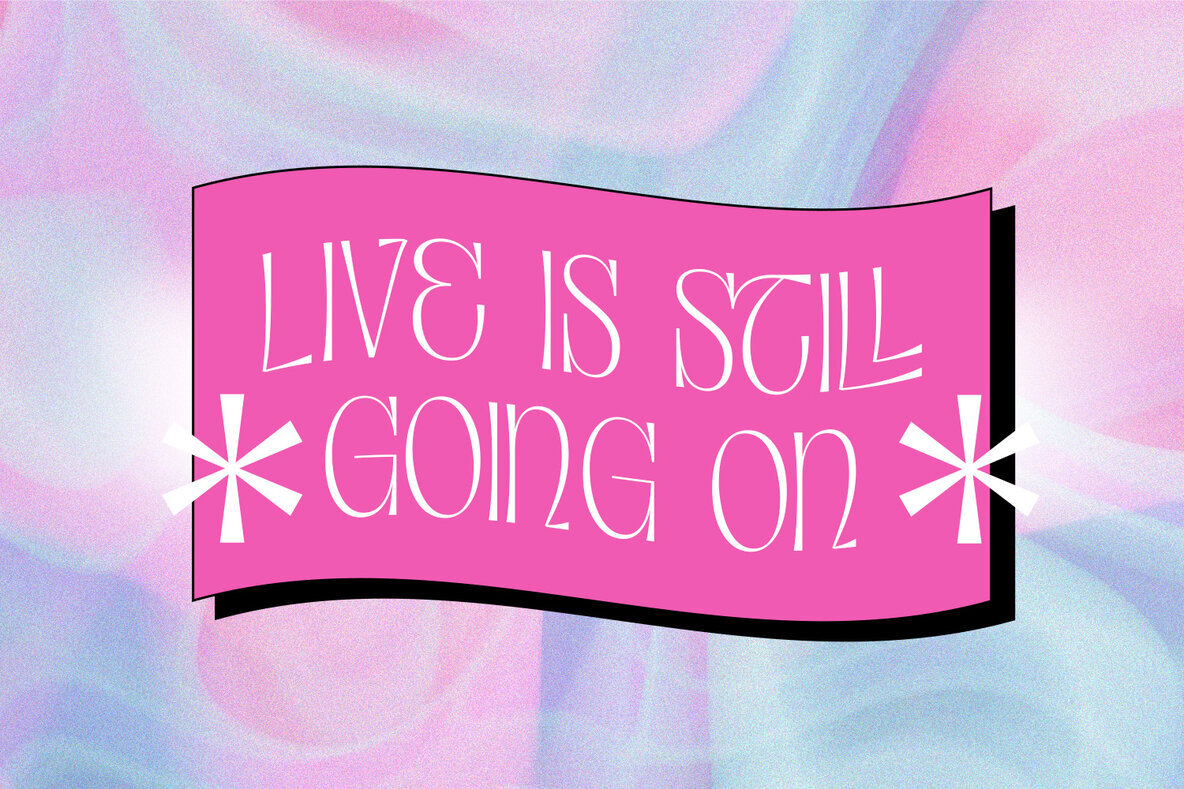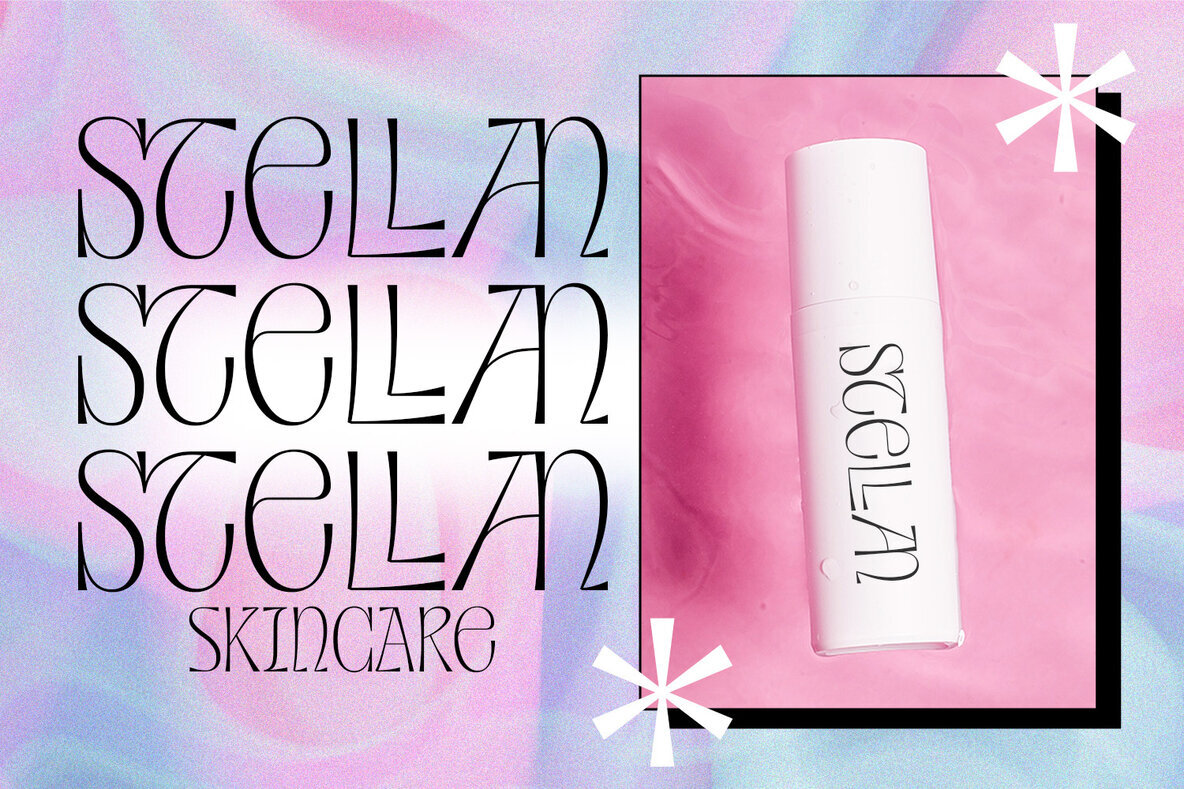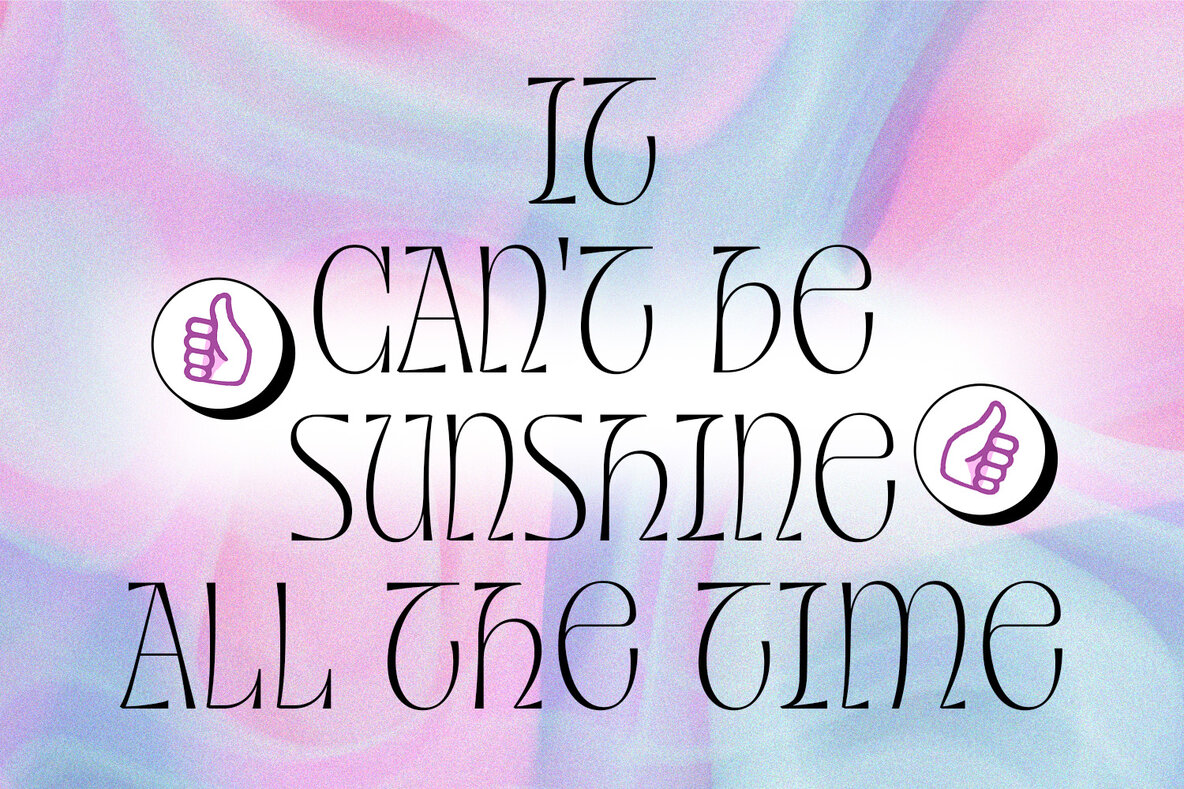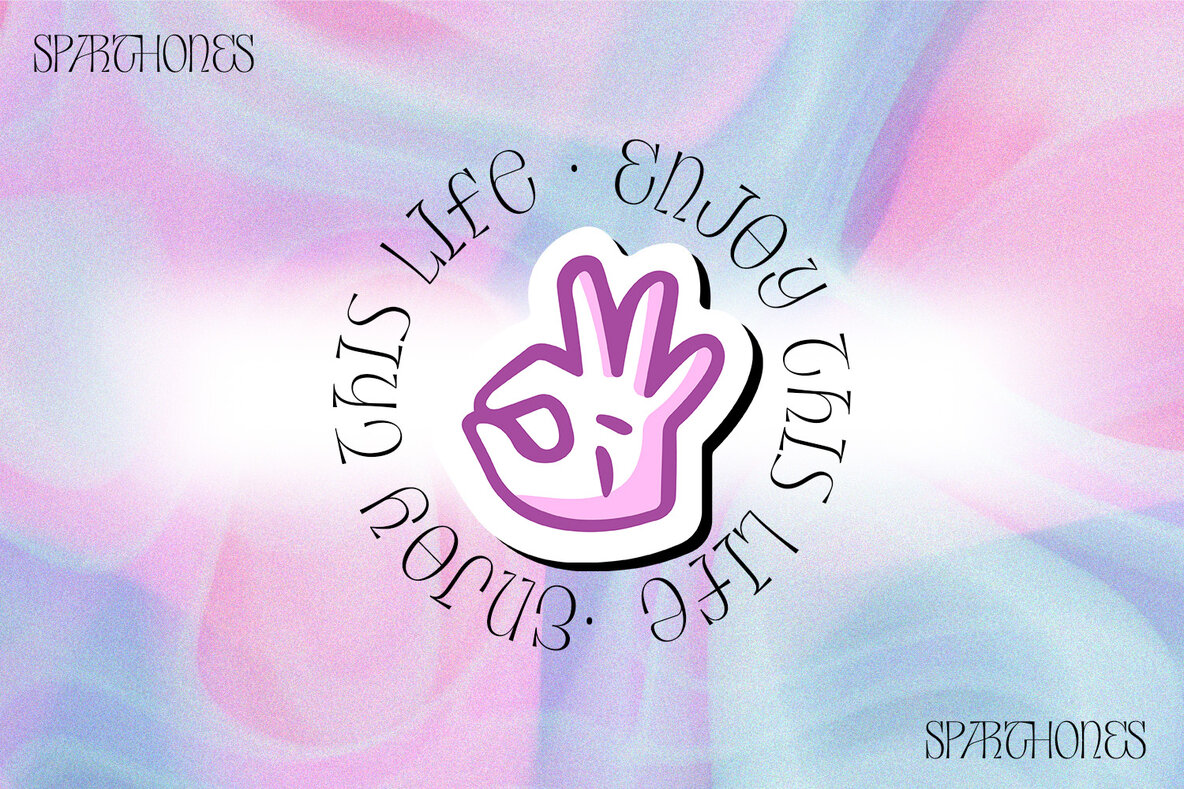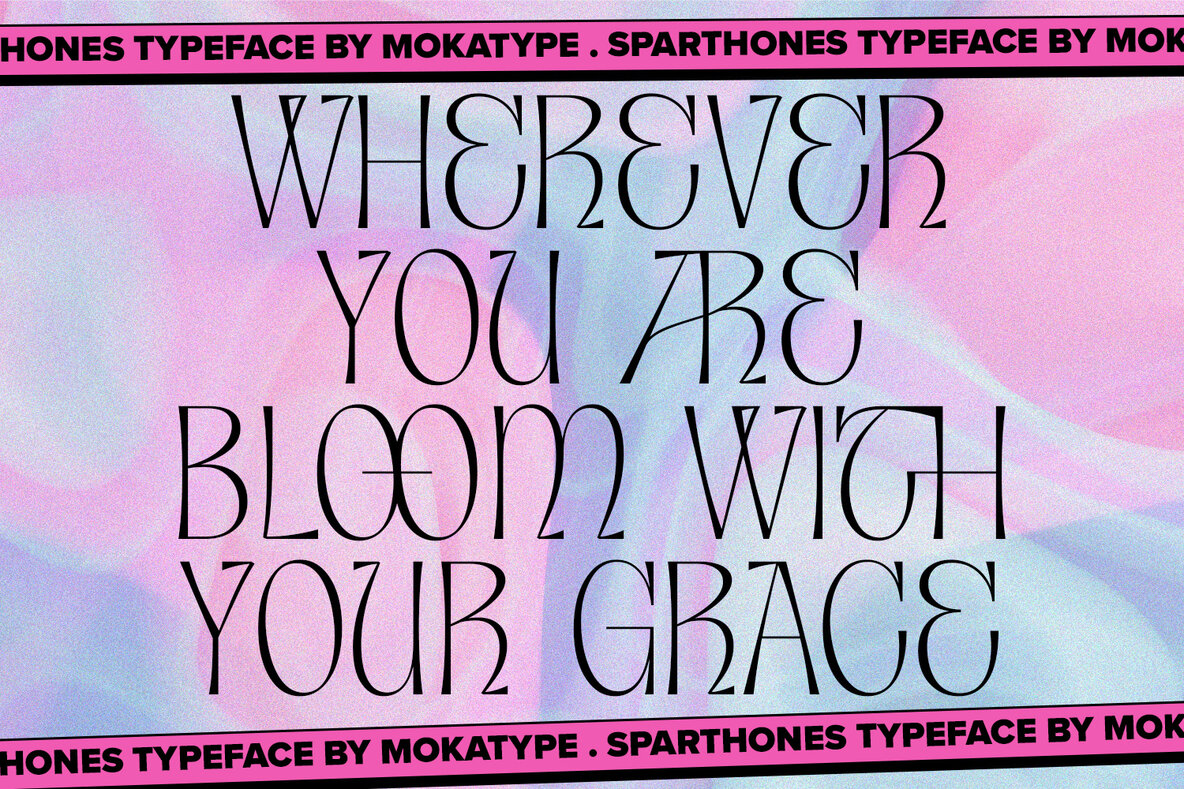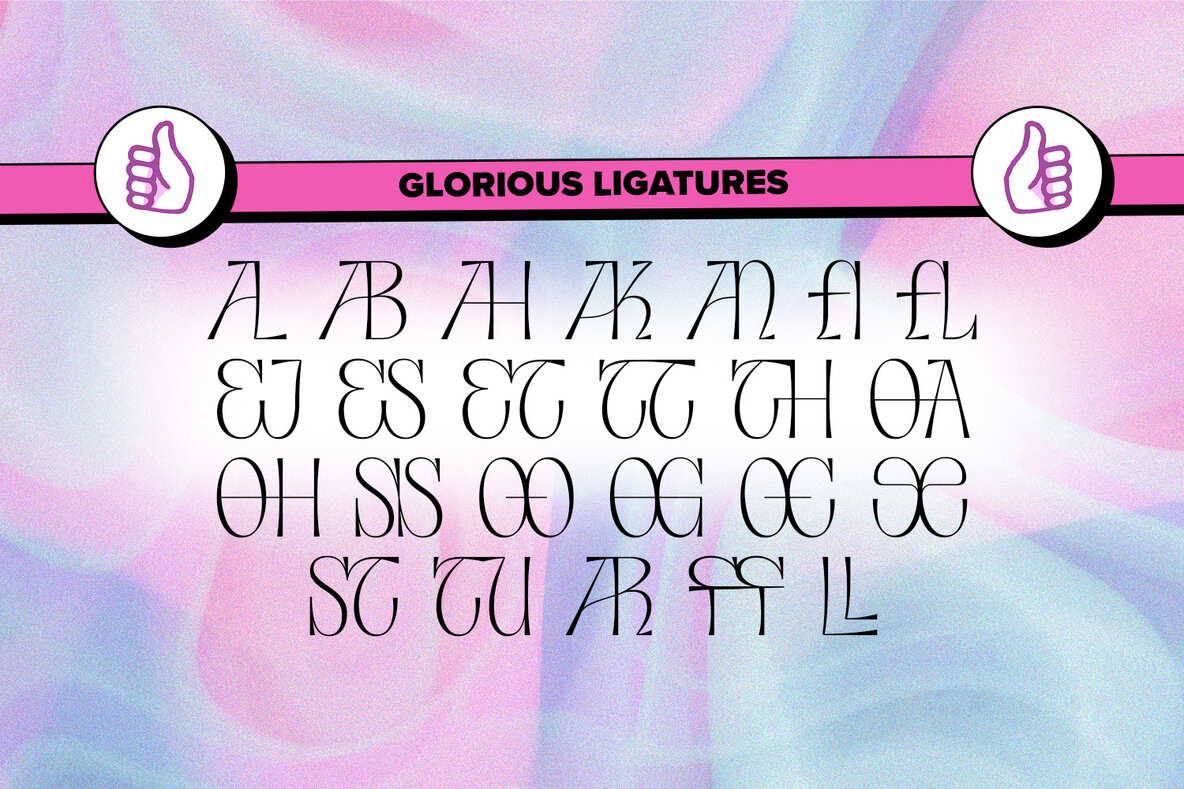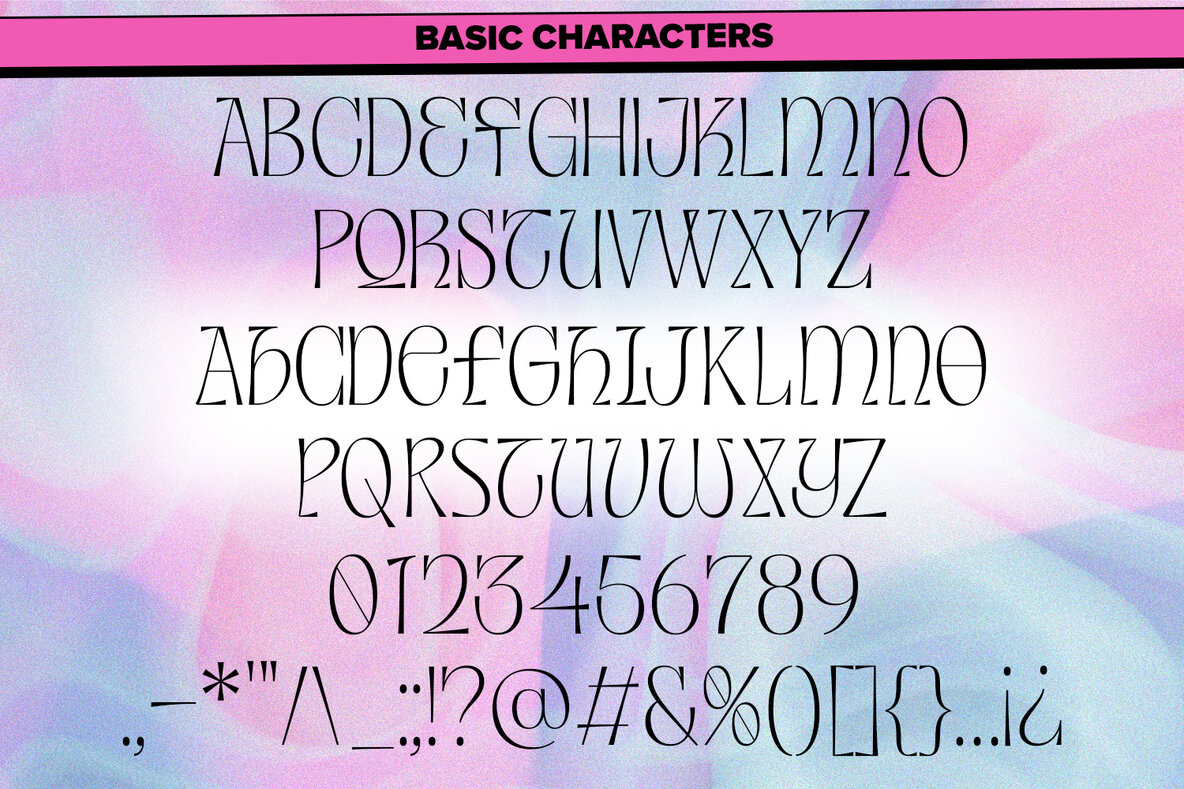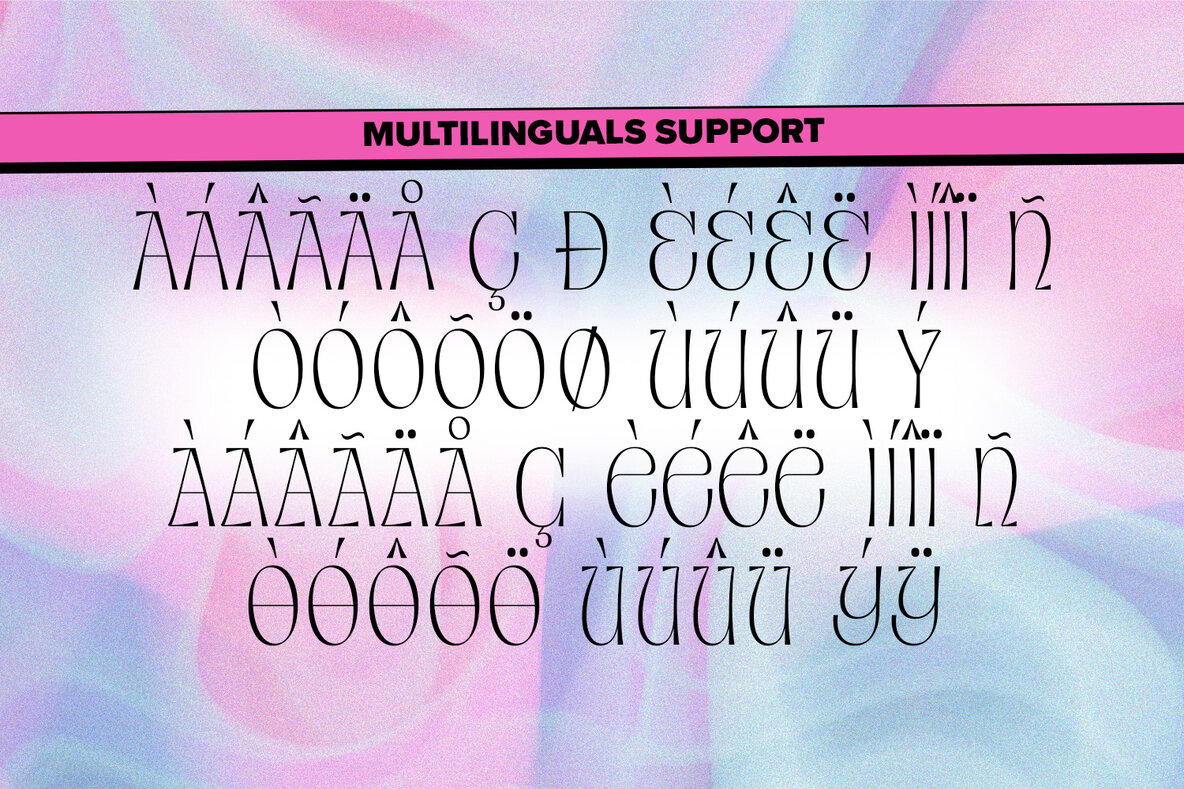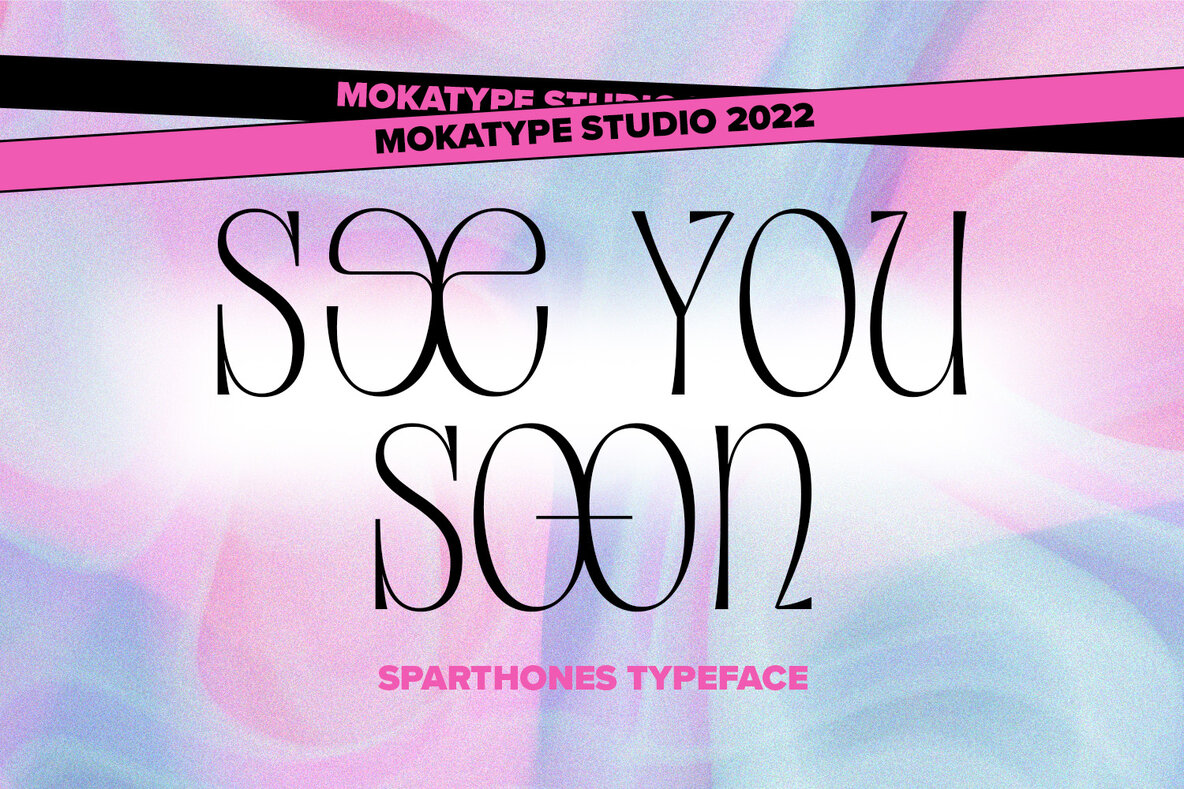
Sparthones Font
SPARTHONES REGULAR
Sparthones by MokaType Studio stands out as an exquisite display font, characterized by its unique ligatures and flexible pairing of lowercase and uppercase letters. Its stylish, elegant nature makes it ideal for an array of design applications including headlines, typography, posters, magazines, brochures, websites, and more. Sparthones adds a touch of luxury and sophistication to any project, transforming your design into a visual masterpiece. Features: This font is fully compatible with major design software such as Adobe Illustrator, Adobe Photoshop, Adobe InDesign, and Microsoft Word, ensuring a seamless integration into your workflow.Sparthones: An Elegant Display Typeface